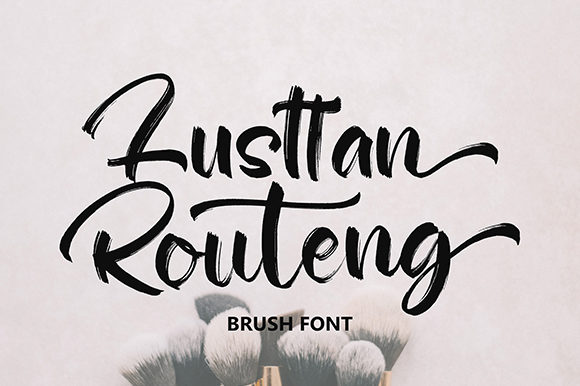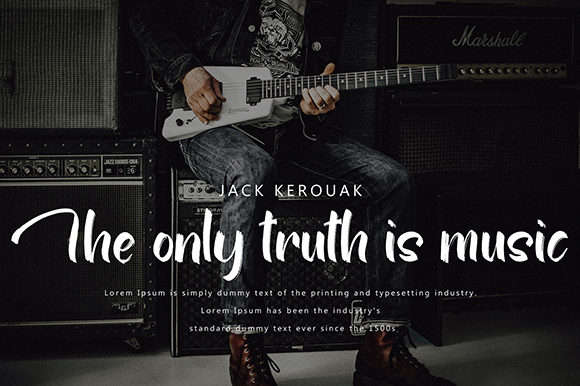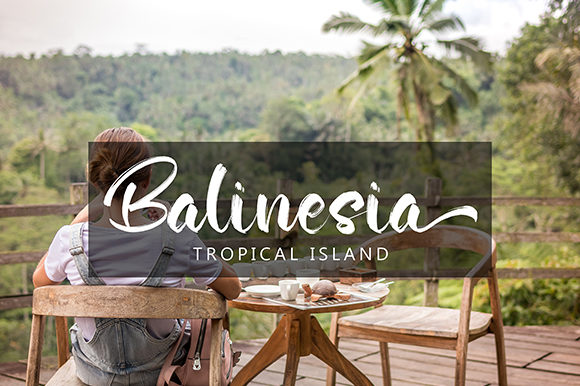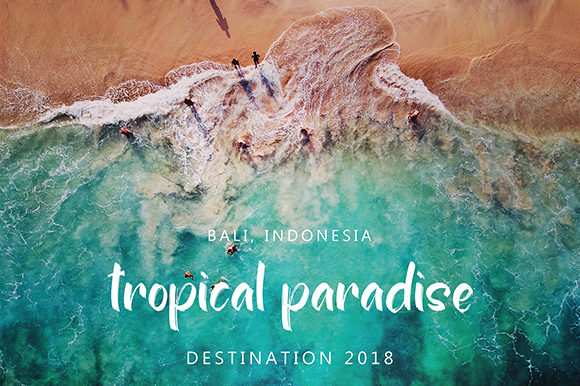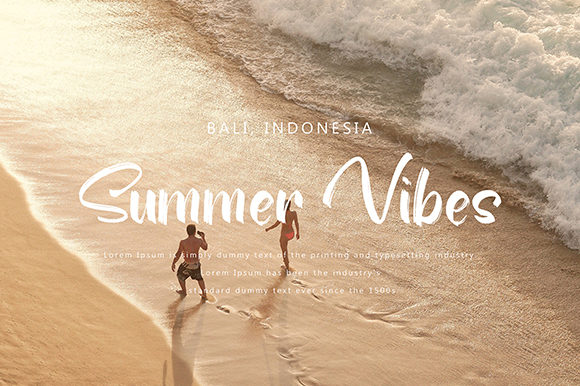
HomeScript FontsLusttan Routeng Font Script Fonts Lusttan Routeng Font FacebookXPinterestWhatsApp Lusttan Routeng Font Poster 2 Lusttan Routeng Font Poster 3 Lusttan Routeng Font Poster 4 Lusttan Routeng Font Poster 5 About Lusttan Routeng Font Lusttan Routeng is a bold brush font with incredible swashes. Get inspired by its unique feel! DOWNLOAD NOW People also explored Bastique Font Fastfood Font Waterdrop Font The Outstand Font Lucky Dream Bold Font Invocation Feharitas Font Hot Librarian Font Vacation Font 262 0 TagsLusttan Routeng Font Previous articleMuttiffula FontNext articleBoimtock Font LEAVE A REPLY Cancel reply Comment: Please enter your comment! Name:* Please enter your name here Email:* You have entered an incorrect email address! Please enter your email address here Website: Save my name, email, and website in this browser for the next time I comment. Personal Use Free Bonifaciy Personal Use Free Read more about this font Travelling Free Brush Personal Use Free Read more about this font Senza Bella Personal Use Free Read more about this font Aline Personal Use Free Read more about this font BLOG How to Cut Any Font on Cricut: Convert a Font to SVG (Free) Turn any font into a clean SVG so it cuts crisp on Cricut - a quick 3-step workflow using a free font-to-SVG tool. 5 Fonts That Will Dominate Design Trends in 2026 Using Fonts in Digital Marketing: Tips to Strengthen Your Brand Identity To increase your work productivity, choose the most readable fonts.